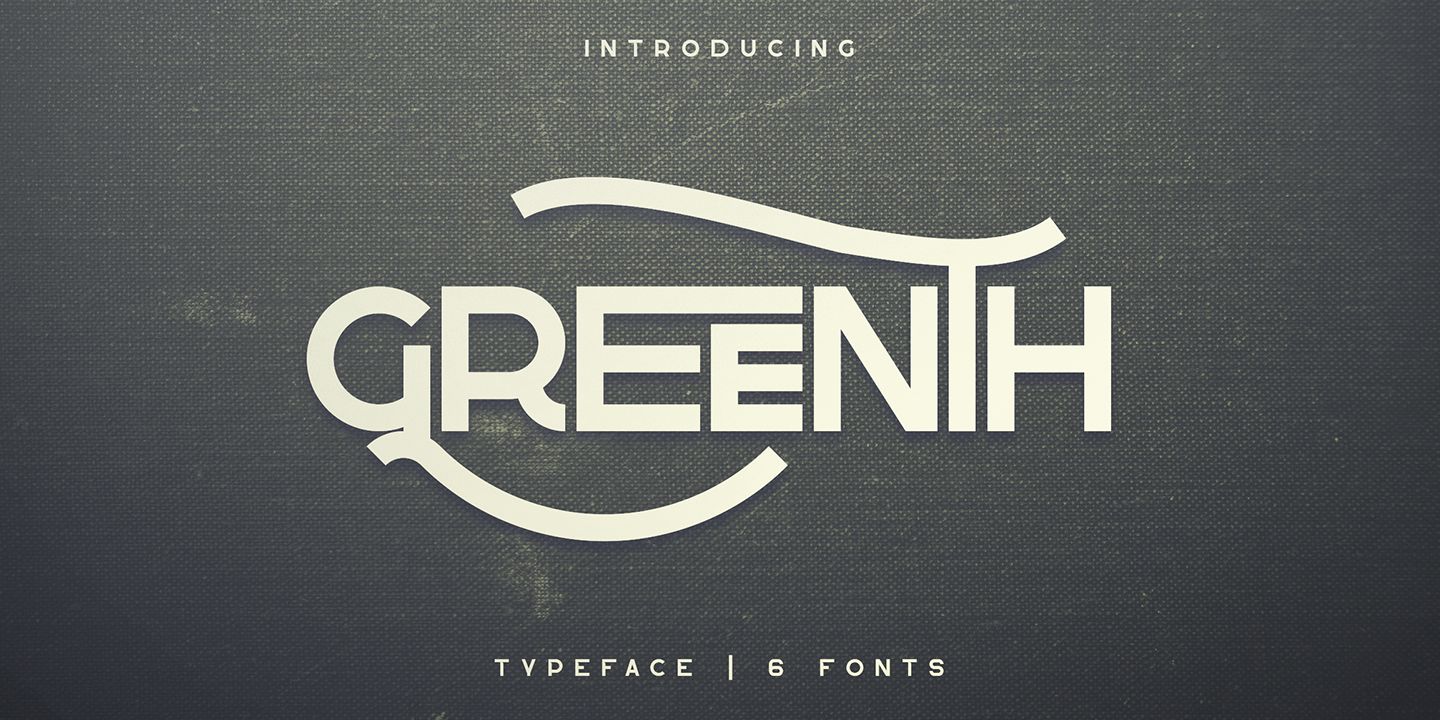
Greenth Font Free Download is a modern and elegant typeface that blends organic curves with a clean and refined design. It is an excellent choice for projects that require a fresh, natural, yet sophisticated look. Perfect for branding, packaging, editorial layouts, and digital media, Greenth adds a touch of creativity and professionalism to any visual presentation.
The font’s smooth lines and balanced letterforms provide excellent readability across various mediums and formats. Its versatility makes it suitable for a wide range of applications, including logos, business cards, website headers, and promotional materials. Greenth effectively conveys both modernity and warmth, making it ideal for brands that wish to emphasize authenticity and innovation.
With its refined design and contemporary appeal, Greenth is a valuable addition to any designer’s font library, offering endless creative possibilities for professional projects.